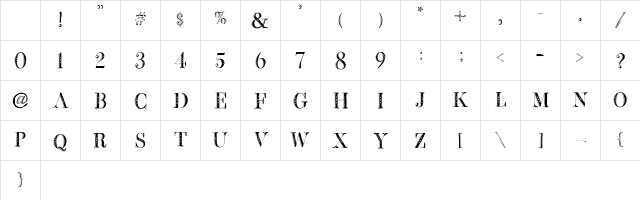
Complete BB Petie Boy Heavy glyph index. Displaying only characters natively supported by BB Petie Boy Heavy font.
BB Petie Boy is a composed and adaptable typeface that performs quietly and consistently across a wide range of design contexts.